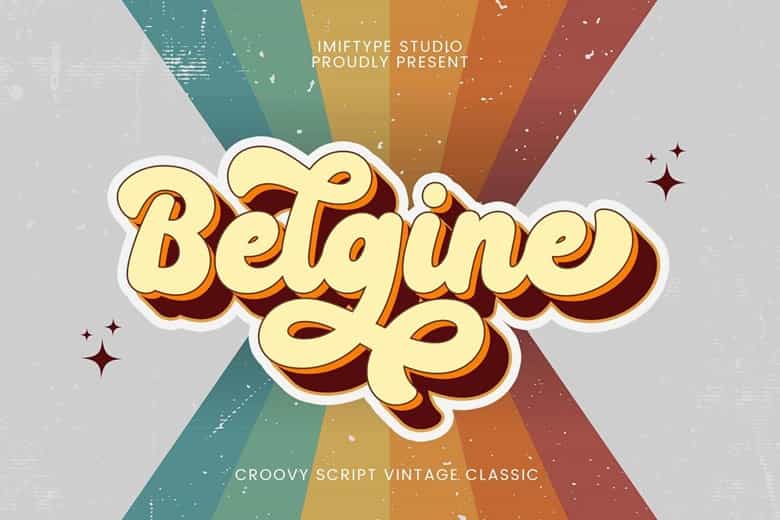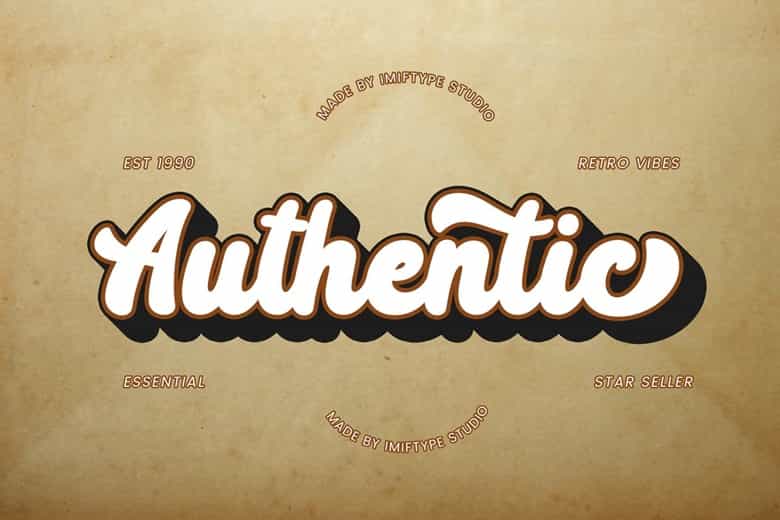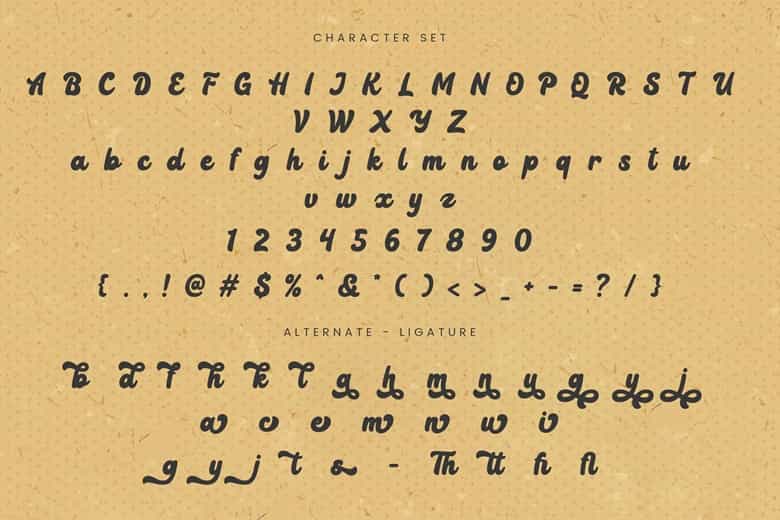
Belgine is an expressive and modern retro font style, with the look and feel of the script from the 60s and the 70s. This makes its script rounded with many ligatures giving it a cheerful outlook that will make it perfect for use in social media platforms and many others. Use this texture for logo design, product labels, or in any logo design when a vintage style suits the design’s theme.